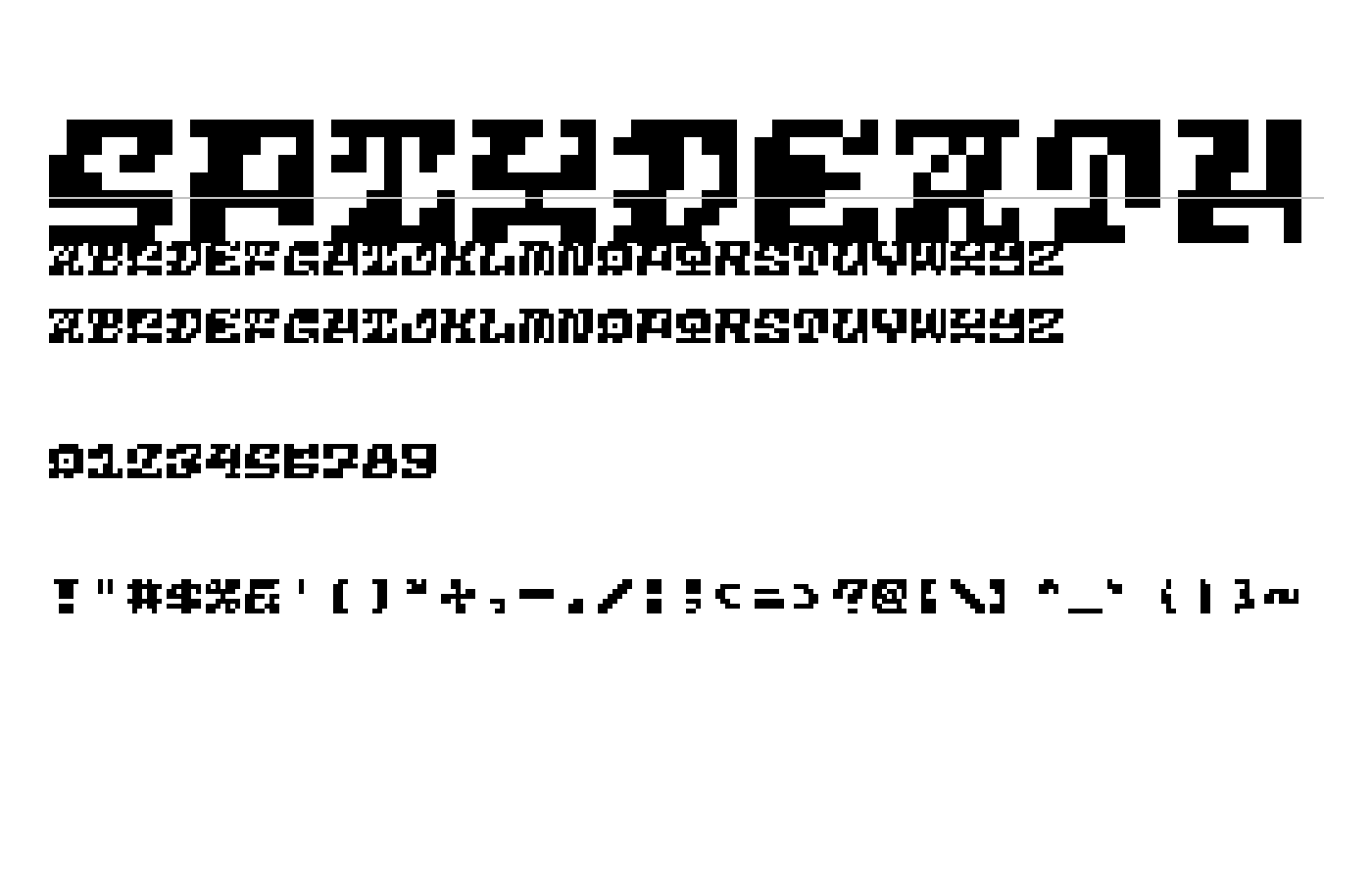
5Pixdeath is a bold, pixelated sans serif font that delivers a strong retro digital vibe with its blocky, geometric shapes and sharp edges. Its compact letterforms and consistent stroke weight make it ideal for creating eye-catching headlines, logos, or designs that need a distinct, tech-inspired aesthetic. This font works especially well for video game graphics, technology branding, and any project seeking a vintage computer or arcade style.
5Pixdeath Font
About 5Pixdeath Font
| Font family | 5Pixdeath Font |
| Designer | Noah - 11 year old typomaniac |